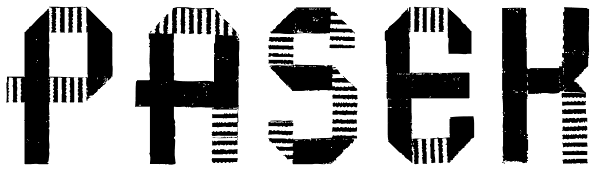
Pasek
The inspiration for this font was a two-sided piece of paper. The glyphs were created by bending strips of this paper, then scanned and recreated digitally.